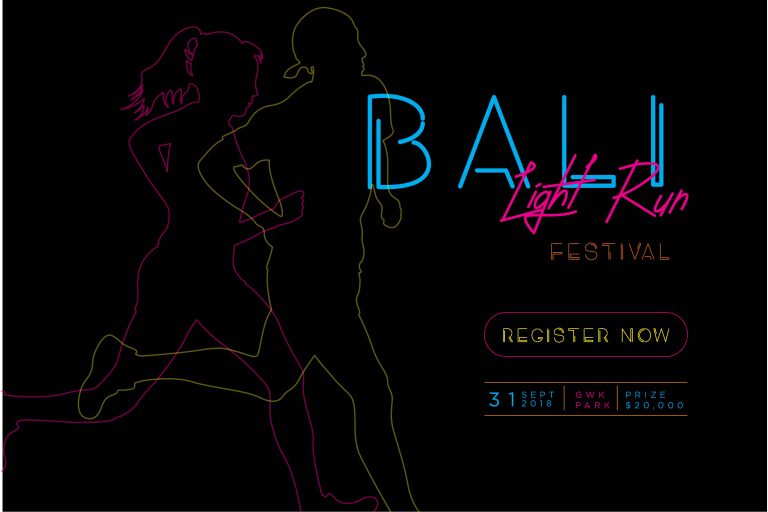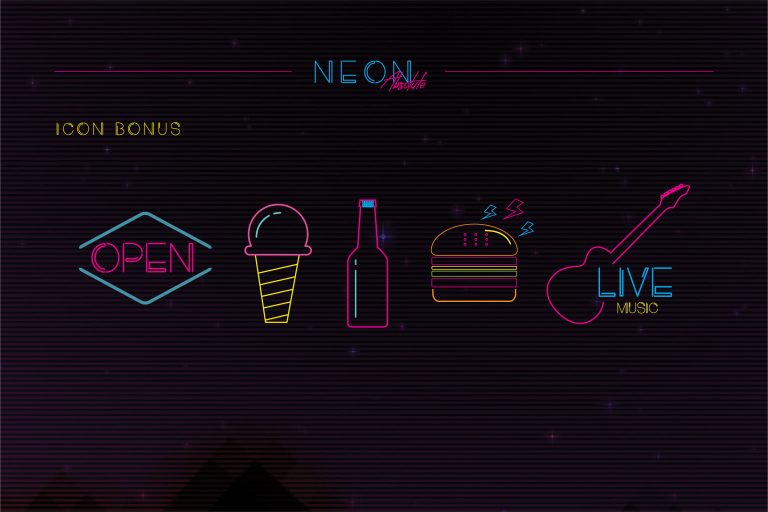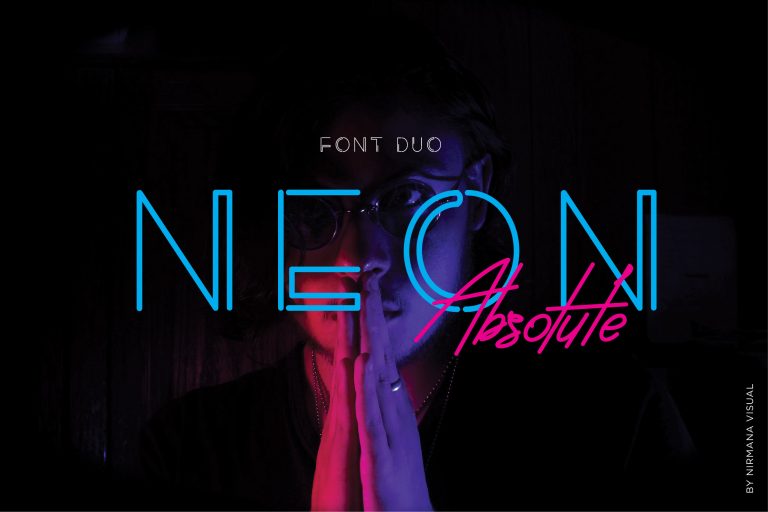
NEON ABSOLUTE SANS FONT
Neon Absolute Sans Font
Neon Absolute ! by Ardyanatypes x Nirmana Visual
a classy, contemporary pair of script and sans fonts, inspired by 1980’s and neon lights.
Neon Absolute offers beautiful typographic harmony for a diversity of design projects, including logos & branding, social media posts, advertisements & product designs.
Neon Absoulte by Nirmana Visual,